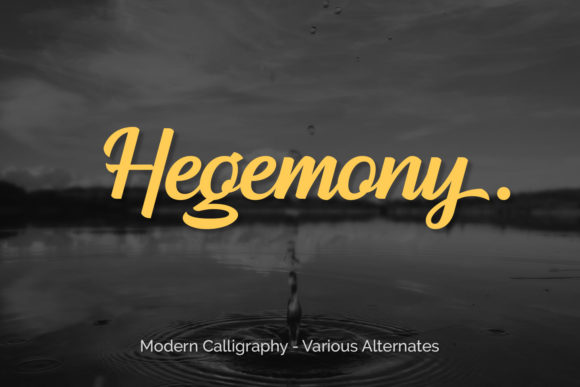
Behold the Hegemony Font, a Distinctive Masterpiece That Will Transform Your Designs!
In a world saturated with monotony, dare to be different. Introducing Hegemony Font, the script typeface that's a breath of fresh air. With its bold and clean strokes, this modern calligraphy font is an emblem of elegance and sophistication.
Hegemony Font is the brainchild of Akarija Studio, a renowned foundry known for their innovative and captivating typefaces. With this creation, they've surpassed themselves, crafting a font that's both aesthetically pleasing and highly functional.
Whether you're a seasoned designer or a creative novice, Hegemony Font is your perfect companion. Its versatility knows no bounds, adapting effortlessly to a myriad of design projects, from logos and branding to invitations and social media posts.
Immerse yourself in the realm of creativity, let your imagination run wild, and let Hegemony Font elevate your designs to new heights. This font is not merely a tool; it's an expression of your individuality, a reflection of your unique style.
Step into the spotlight and make a statement with Hegemony Font. Its bold presence will captivate your audience, leaving a lasting impression that lingers long after they've closed their screens.
Don't settle for the ordinary. Embrace the extraordinary. Embrace Hegemony Font and unlock a world of limitless possibilities.